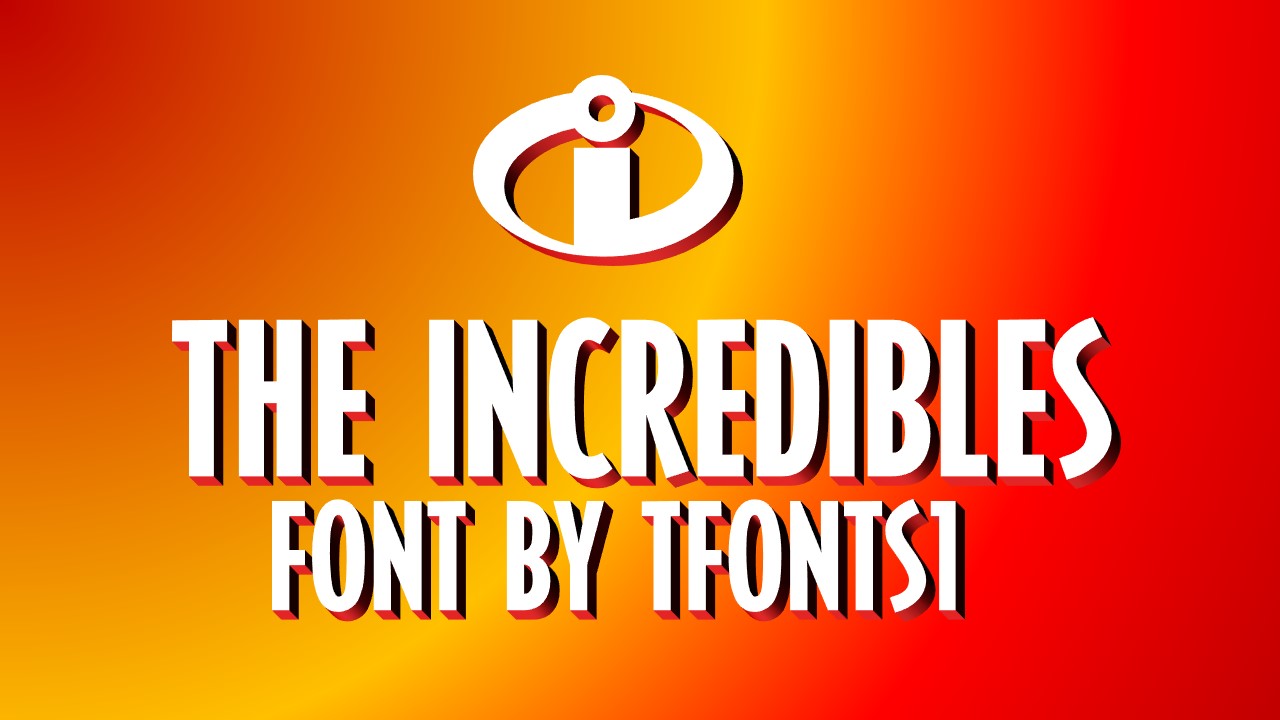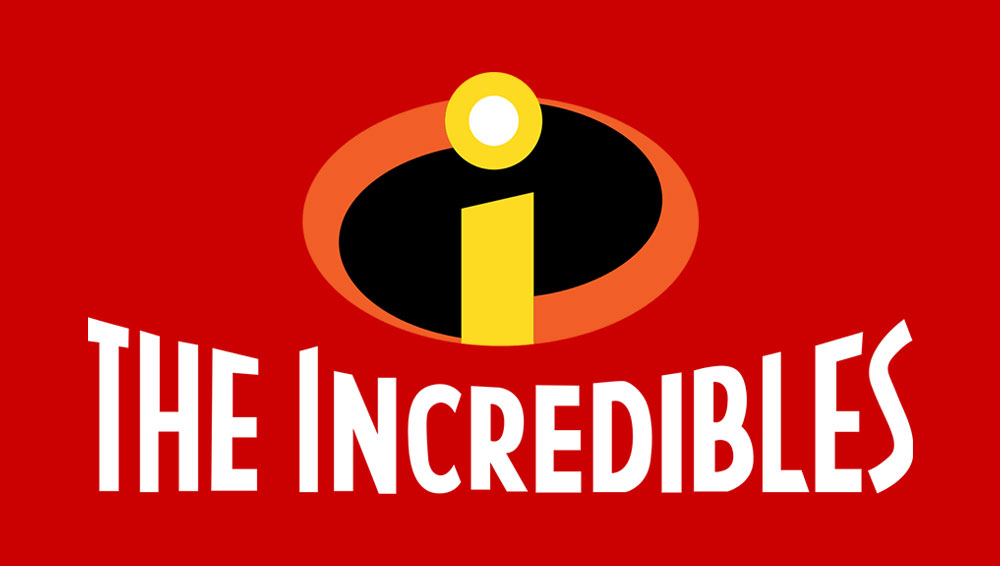
The Incredibles Font
The Incredibles Font is highly utilized in the Circuits that are just like ailerons font. Also, this typeface is mostly used in the Disney movies and it is also called the Frozen font Its sort is harking back to gothic timber sorts however more geometric. This makes for charmingly considered one of type of characters that align perfectly, even if used at first-rate sizes. However, that could be a spotless searching and certainly sturdy font in case you want to give you the consequences you want.
It’s been comprised as a neighborhood font desire and is one of the first-rate fonts for logo layout. The Incredibles Font Free Which makes it closing for designing logos for startups, internet pages, and modern producers. The font is accessible in 2 variations: commonplace and description. A sans-serif font that is much like zootopia font from tool-type foundry based at the concept of ‚Äòimplied geometry‚Äô, its letterforms characteristic circles which might be nearly however no longer as an alternative final.